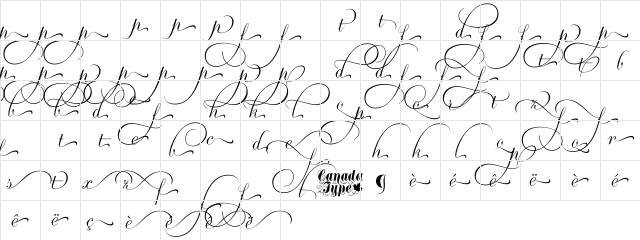
Ambassador Script Ends IV flows with the natural rhythm of handwritten lettering, making it ideal for designs that call for warmth and personal expression.
Font Pairing: Combine Ambassador Script Ends IV with a simple geometric sans for maximum contrast - the tension between flowing curves and clean structure is a classic typographic pairing.
Pro Tip: Use Ambassador Script Ends IV for short runs of text - names, titles, or taglines. Extended body copy in script faces tires the eye quickly.